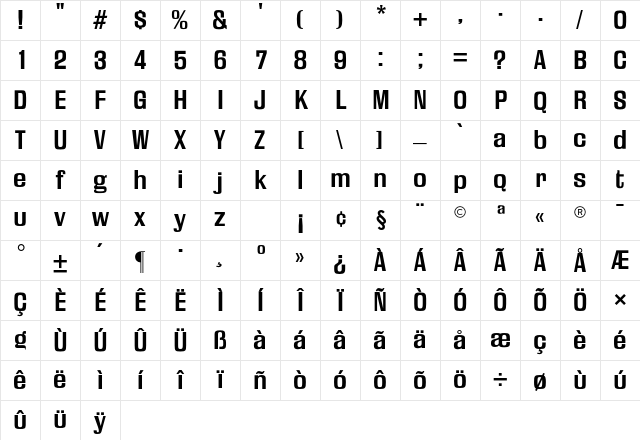
Fiedler Gothic CG Bold Regular
Foundry: Agfa Corporation
Design Context for Fiedler Gothic CG Bold
Fiedler Gothic CG Bold takes a clean, functional approach - its unadorned letterforms prioritise legibility and work reliably across screen and print environments. Its bold stroke weight gives it real presence on the page.
Font Pairing: Use Fiedler Gothic CG Bold for headlines alongside a lighter-weight sans or serif for body copy to establish clear visual hierarchy.
Pro Tip: Use Fiedler Gothic CG Bold for UI labels, navigation, and short-form body copy where clean legibility is the priority.